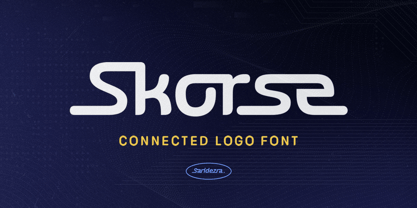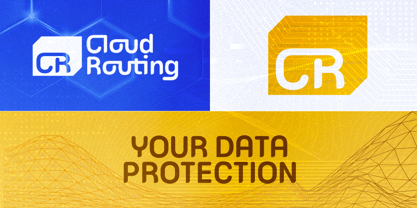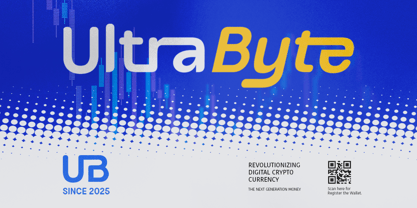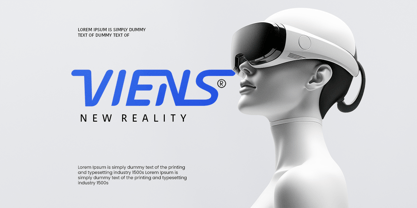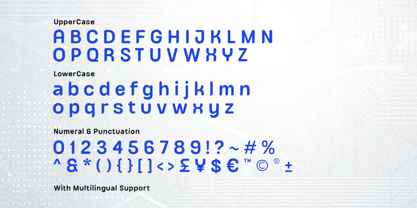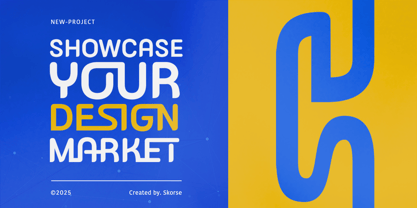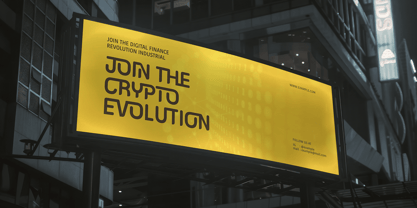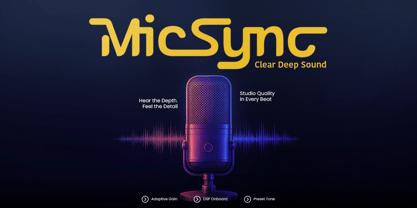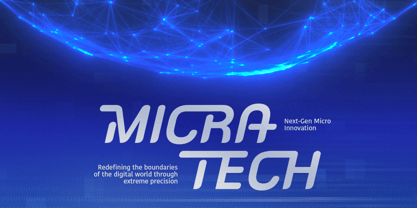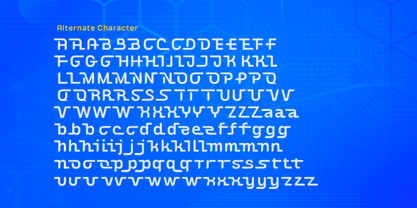
Skorse
by Sarid Ezra
Skorse is a modern sans-based logo font featuring stylish connected alternates that create a sleek and futuristic appearance. It comes with three alternate variations for each character, allowing you to seamlessly connect two or more letters for unique and dynamic typography designs. With its clean structure and sci-fi inspired aesthetic, Skorse is perfect for logotypes, branding projects, hi-fi and futuristic movie posters, gaming titles, tech-themed visuals, and other creative works that require a bold modern look. The font is highly versatile and easy to experiment with, making it suitable for both professional and experimental designs. In addition, Skorse includes multilingual support, allowing you to use it across a wide range of international projects and audiences.